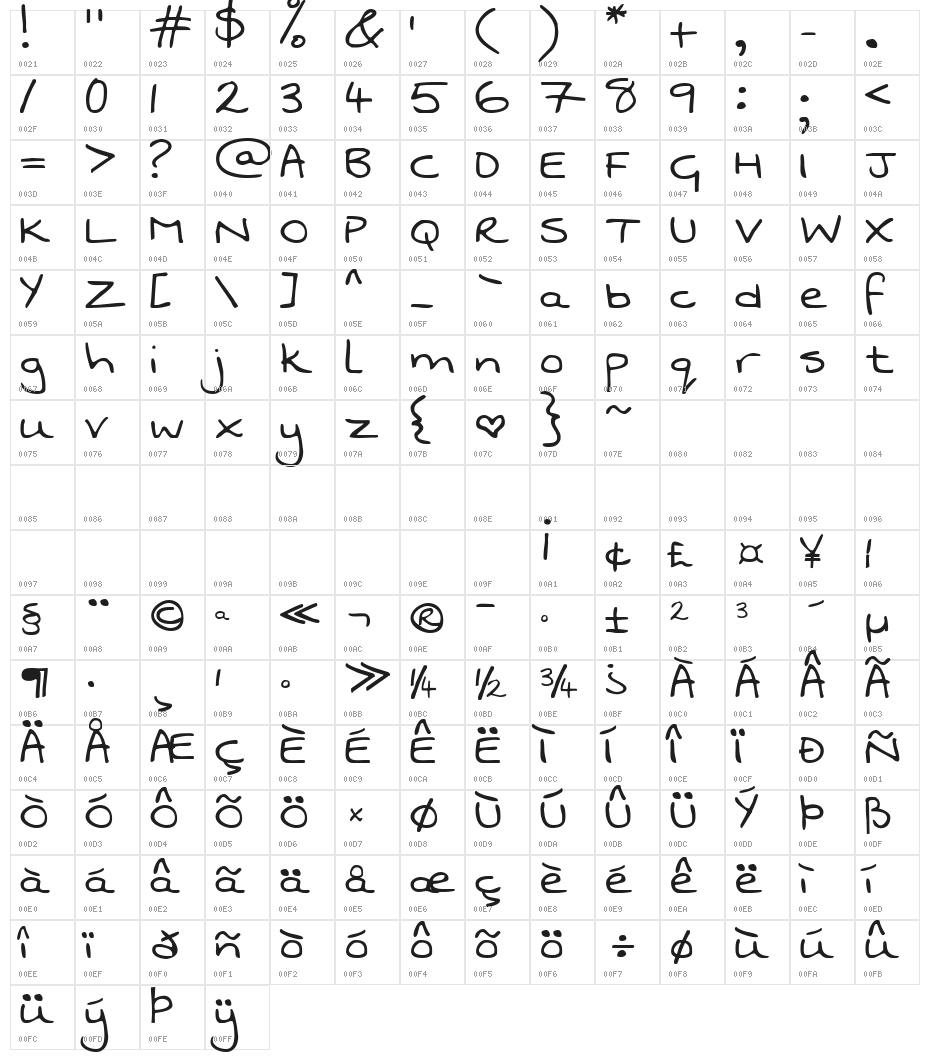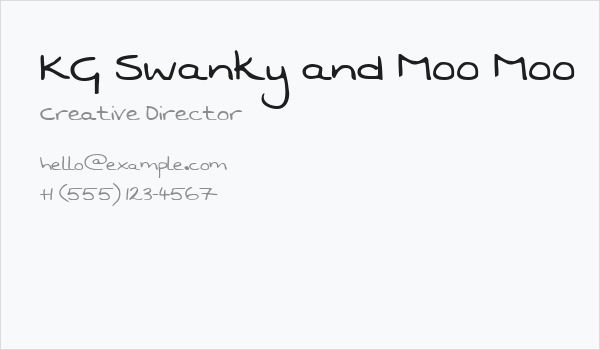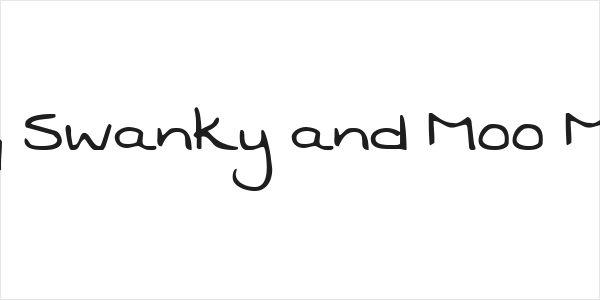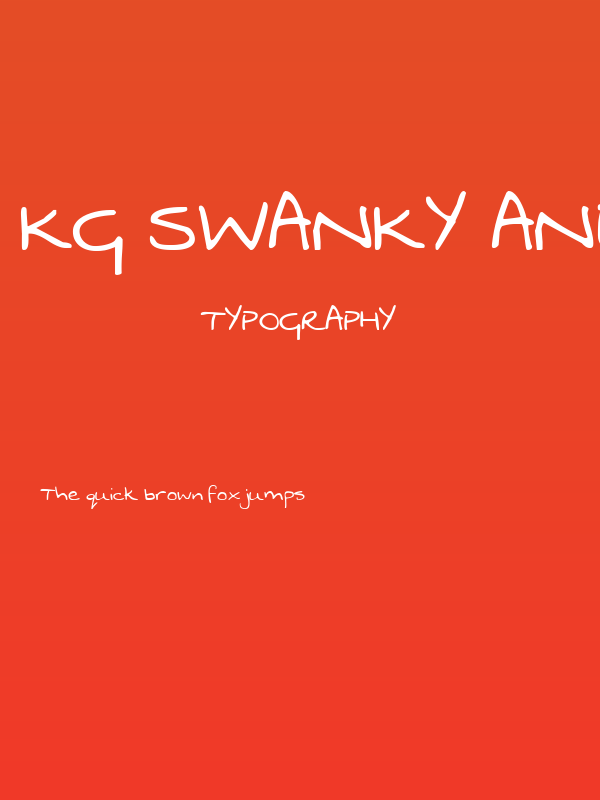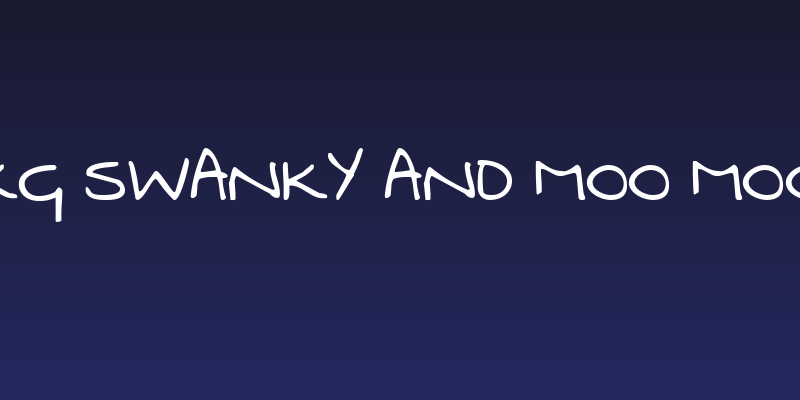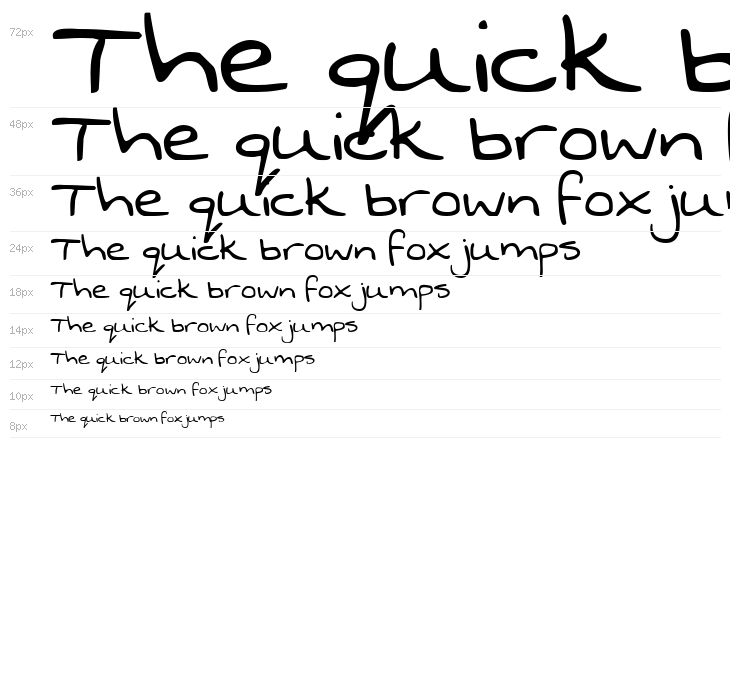
KG Swanky and Moo Moo Font
KG Swanky and Moo Moo Description
This playful and whimsical font features a handwritten style with a casual and friendly appearance. The letters are slightly irregular, giving it a personal touch that mimics natural handwriting. The strokes are smooth and rounded, with a consistent flow that enhances its readability. The font includes both uppercase and lowercase letters, numbers, and a variety of special characters, making it versatile for different uses. Its informal style makes it suitable for projects that require a fun and approachable aesthetic.
| Overall Style | Casual and playful |
| Use Case | Headlines, Logos, Informal text |
| Proposed Projects | Ideal for children's books, greeting cards, playful branding, and informal invitations. |